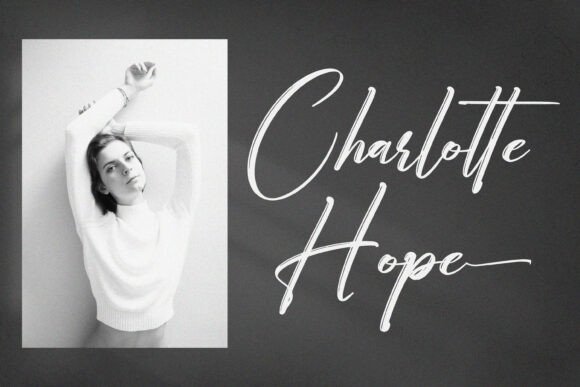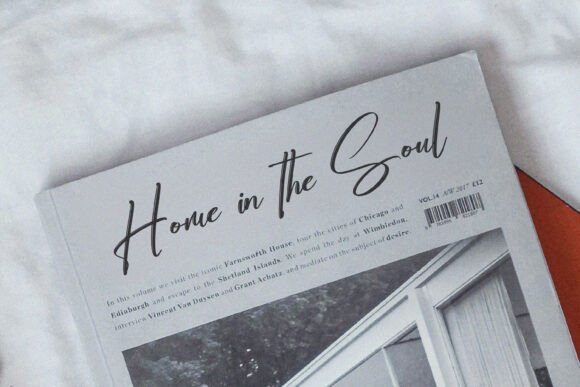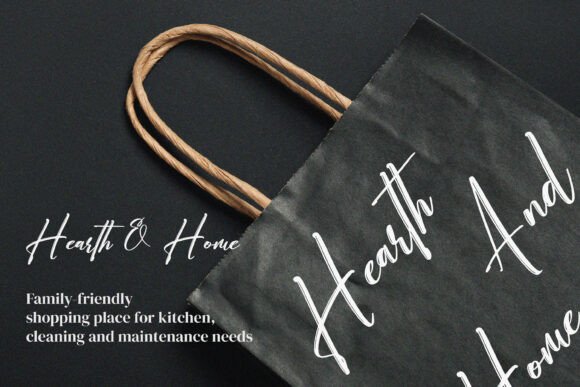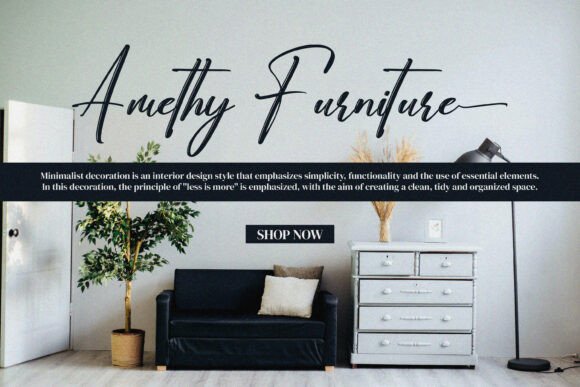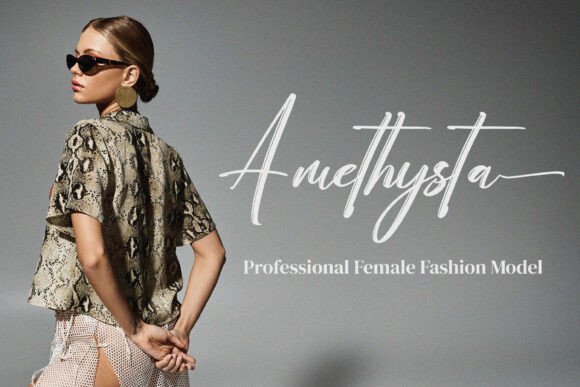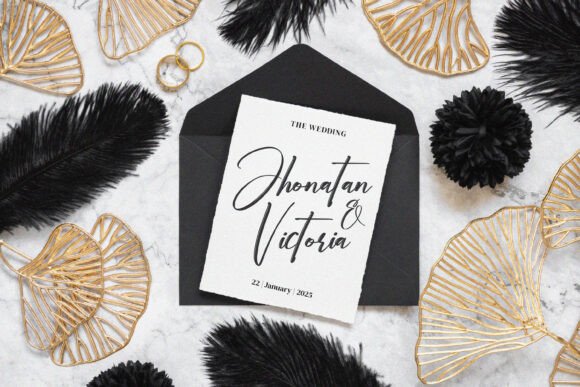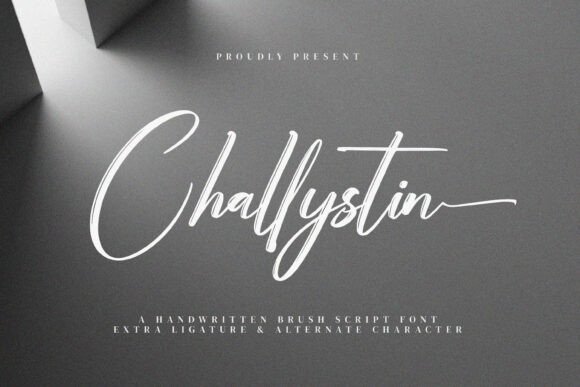
Introducing Challystin Font: The Ultimate Playful and Stylish Handwritten Brush Script Font
Are you tired of using the same old fonts for your designs and crafts? Look no further! Challystin Font is here to revolutionize your creative projects with its playful and stylish handwritten brush script. This beautiful font features smooth, flowing letters that give it a natural, artistic look, perfect for adding a personal touch to invitations, logos, and more.
What Makes Challystin Font So Special?
Challystin Font is a unique and eye-catching font that stands out from the crowd. Its smooth, flowing letters are designed to mimic the look of handwritten brush script, giving it a natural and artistic feel. The font is perfect for designers and crafters who want to add a personal touch to their projects, whether it’s a wedding invitation, a logo, or a social media post.
Key Features of Challystin Font
- Playful and Stylish: Challystin Font is a playful and stylish handwritten brush script font that’s perfect for creative projects.
- Smooth and Flowing Letters: The font features smooth, flowing letters that give it a natural, artistic look.
- Perfect for Invitations and Logos: Challystin Font is perfect for adding a personal touch to invitations, logos, and more.
- Easily Readable: The font is easily readable, making it perfect for use in a variety of projects, from digital media to print materials.
- Versatile: Challystin Font is versatile and can be used in a variety of projects, from creative crafts to commercial designs.
How to Use Challystin Font in Your Designs
Using Challystin Font in your designs is easy! Here are a few tips to get you started:
- Pair it with Other Fonts: Pair Challystin Font with other fonts to create a unique and eye-catching design.
- Use it for Headings and Titles: Use Challystin Font for headings and titles to add a personal touch to your designs.
- Add it to Your Digital Media: Add Challystin Font to your digital media, such as social media posts and blog headers, to give them a personal touch.
- Use it for Print Materials: Use Challystin Font for print materials, such as invitations and brochures, to add a touch of elegance and sophistication.
Why Designers and Crafters Love Challystin Font
Designers and crafters love Challystin Font for its unique and eye-catching design. Here are a few reasons why:
- Unique and Creative: Challystin Font is a unique and creative font that’s perfect for designers and crafters who want to stand out from the crowd.
- Easily Customizable: The font is easily customizable, making it perfect for use in a variety of projects.
- Perfect for Branding: Challystin Font is perfect for branding projects, such as logos and business cards.
- Adds a Personal Touch: The font adds a personal touch to designs and crafts, making them more special and meaningful.
| Font Name | Challystin Font |
| Author | Goresan Studio |
In conclusion, Challystin Font is a playful and stylish handwritten brush script font that’s perfect for designers and crafters who want to add a personal touch to their projects. With its smooth, flowing letters and easily readable design, Challystin Font is versatile and can be used in a variety of projects, from creative crafts to commercial designs. So why wait? Try Challystin Font today and take your designs to the next level!